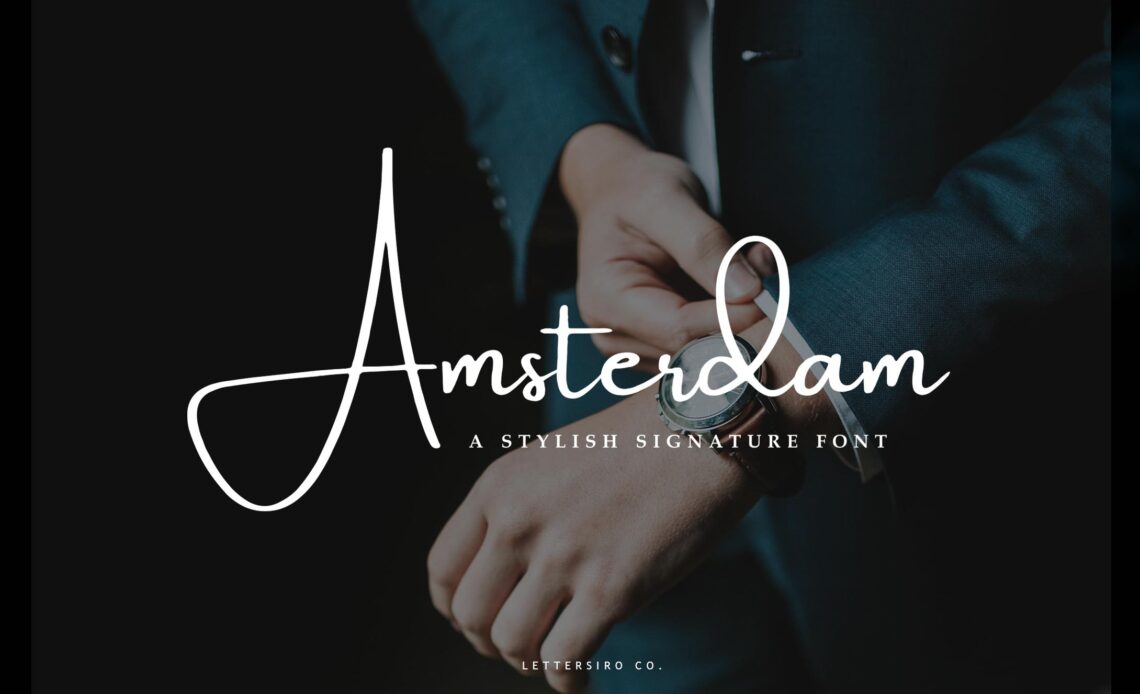
Download Amsterdam Font for free! Created by Lettersiro Co. and published by Eli Bridges, this script font family is perfect for adding a unique touch to your designs.